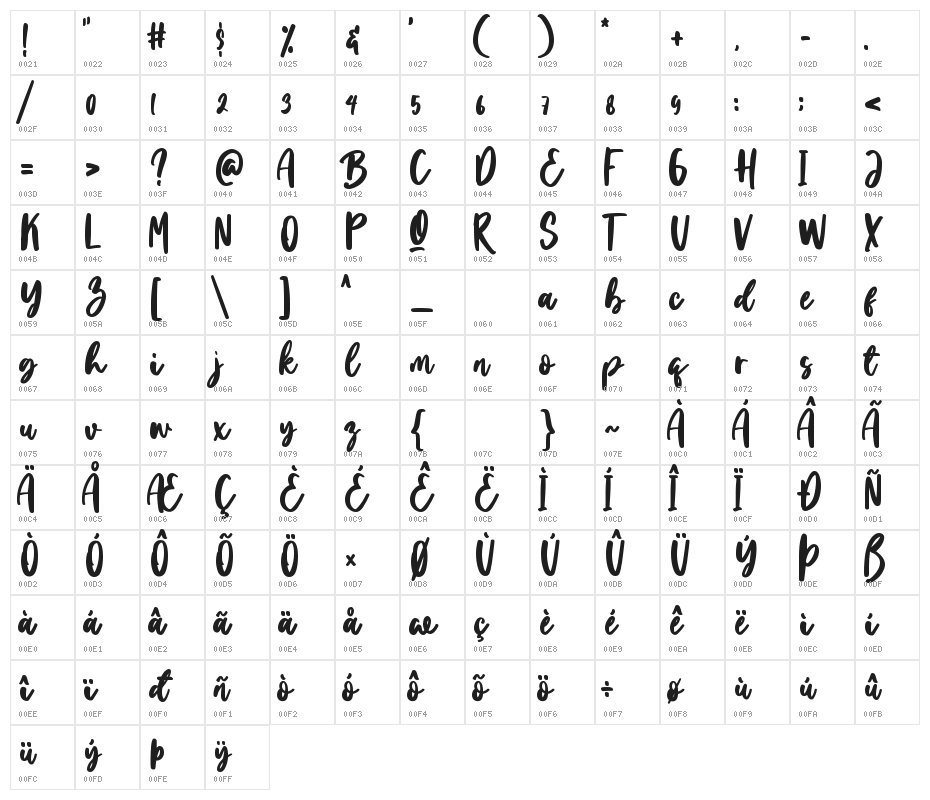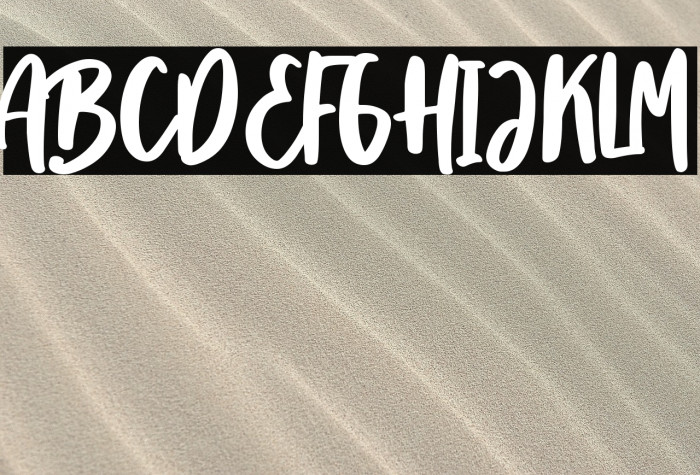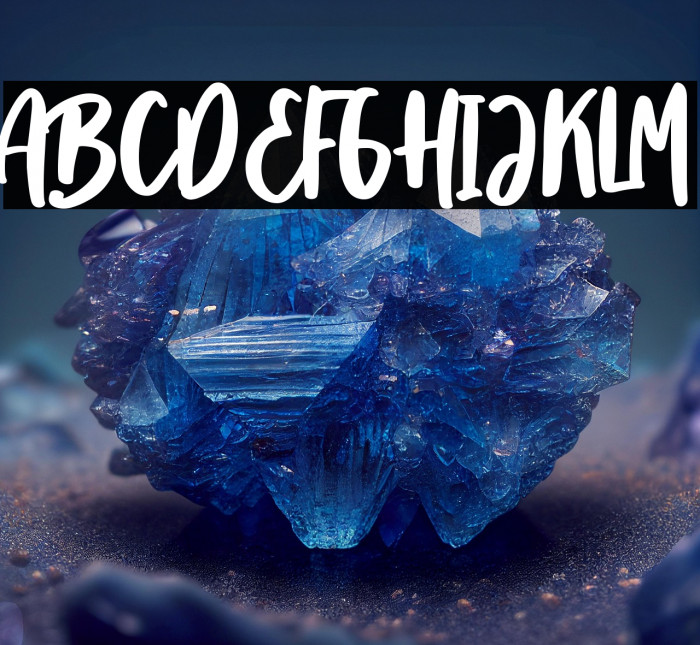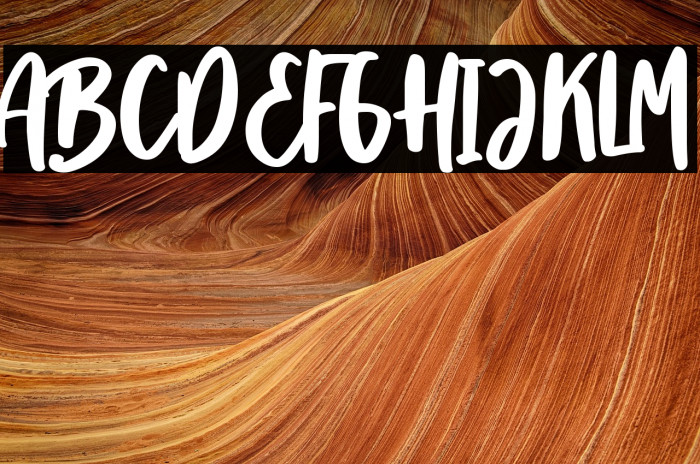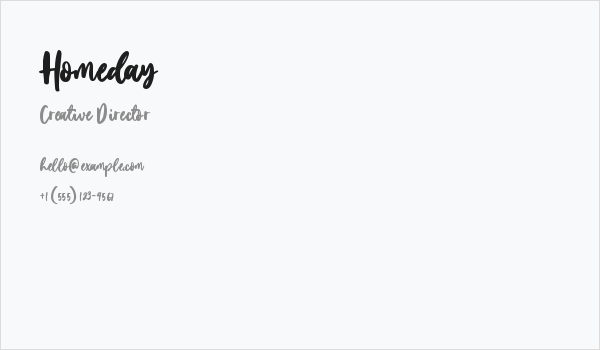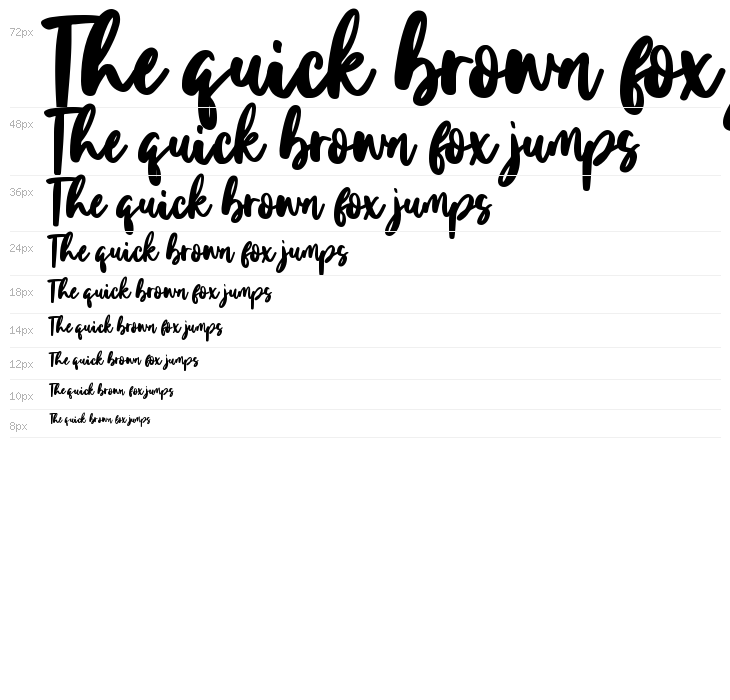
Homeday Font
Homeday Description
This font features a bold, handwritten style with a playful and energetic appearance. The letters are crafted with a thick, consistent stroke that gives a sense of fluidity and movement. The uppercase and lowercase characters maintain a cohesive look, with rounded edges and a slightly slanted orientation, adding to its dynamic feel. The numbers and special characters are equally bold and expressive, making them stand out. This font is perfect for projects that require a personal touch or a lively, informal vibe.
| Proposed Projects | Ideal for greeting cards, posters, branding, and social media graphics. |